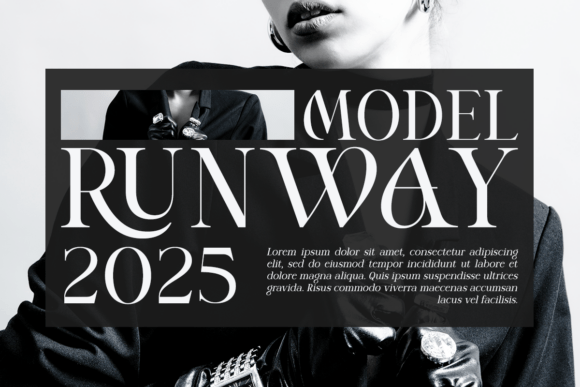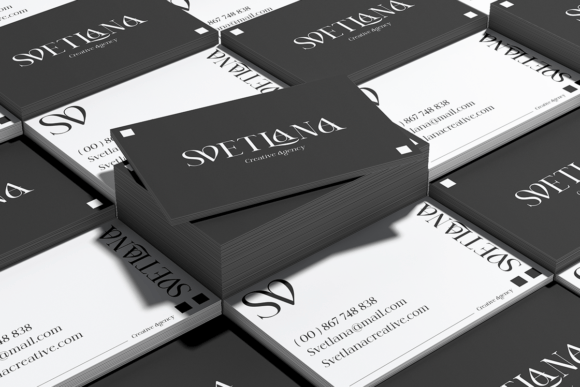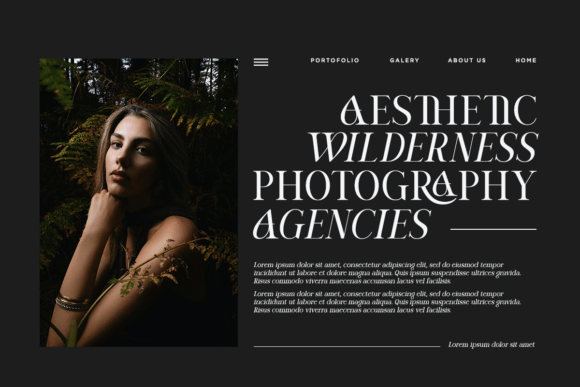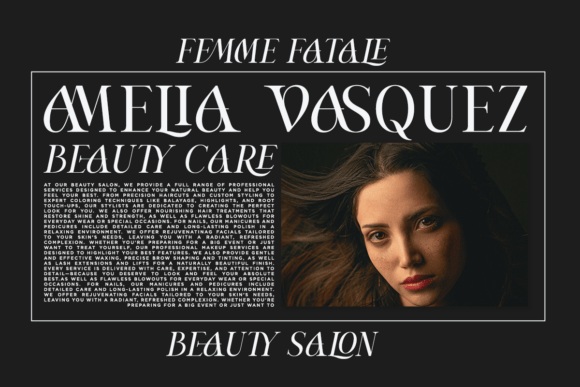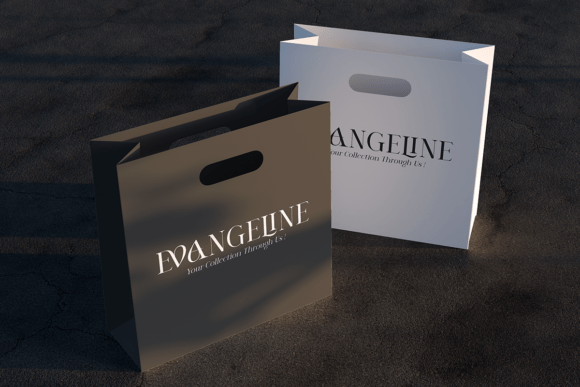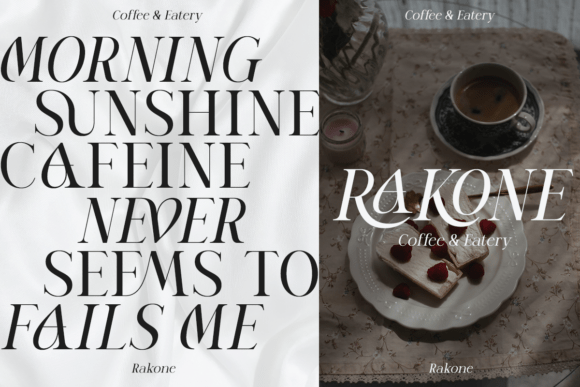
Unleash Your Creativity with Avires Font
You know that moment when you’re working on a project and you just can’t seem to find the right font to bring it all together? The words are flowing, the ideas are pouring in, but the typeface just doesn’t quite match the vision in your head. That’s where the Avires Font comes in – a stylish ligature serif font designed to elevate any creative project and command attention.
With its sophisticated and high-fashion serif typeface, the Avires Font brings a perfect balance of classic charm and contemporary flair. Its elegant curves, sharp serifs, and luxurious ligature combinations make it the perfect choice for designers looking to add a touch of luxury and sophistication to their work. Whether you’re working on a high-end fashion brand, a luxury travel brochure, or a premium lifestyle magazine, the Avires Font is sure to make a statement.
Key Features of Avires Font
- Unique Characteristics: Avires Font features a unique blend of modern and classic elements, making it suitable for a wide range of design applications, from branding and advertising to publishing and editorial content.
- Character Set: The font includes a comprehensive character set, including Latin, Cyrillic, and Greek alphabets, as well as various punctuation marks and symbols.
- Font Weight and Style: Avires Font is available in multiple weights, from light to bold, and various styles, including regular, italic, and bold italic, to provide flexibility and versatility in design applications.
Avires Font Review
Overall, I have mixed feelings about the Avires font. ✨ On the positive side, the font is highly customizable, with a wide range of weight options and stylistic variations. This makes it a great choice for designers who want to add a touch of elegance to their projects. The font also has a unique, modern feel that works well for digital products and branding materials.
- Highly customizable with multiple weight options and stylistic variations
- Unique, modern feel that works well for digital products and branding materials
- Includes a range of punctuation and symbol glyphs to match the font’s style
However, there are some limitations to the Avires font that may make it less suitable for certain projects. ⚠️ The font’s readability can suffer in smaller sizes, and the design may not be as effective for print materials or situations where a more traditional font is needed. Additionally, the font’s unique style may not be to everyone’s taste.
Overall, I think the Avires font is a solid choice for designers who want to add a touch of modernity to their projects. While it may not be perfect for every situation, it’s a great option for digital products and branding materials where a unique, customizable font is desired.
Tips for Getting the Most Out of Avires Font
To get the most out of Avires Font, try the following:
- Pair Avires Font with other fonts or graphics to create a unique design.
- Use Avires Font for headings and titles to add
Alternatives to Avires Font for Designers
The Avires Font is a modern sans-serif font known for its clean and minimalist design. However, designers may be looking for alternatives that offer unique features or better compatibility. Here are a few options to consider: